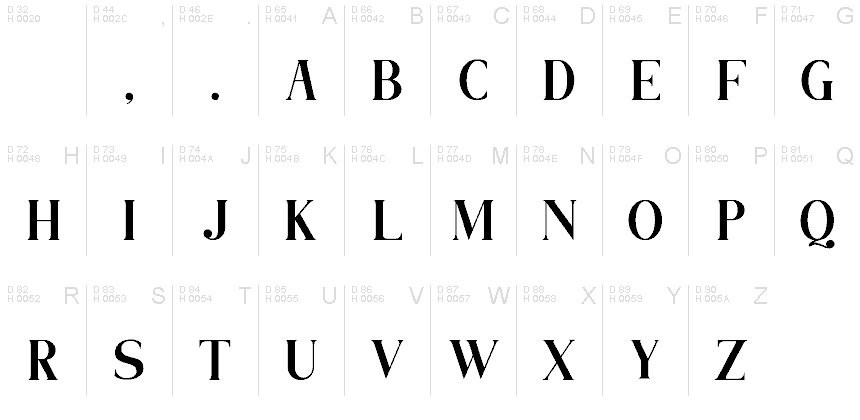
Damona Regular
Damona font by Achmad Yani offers an elegant and sophisticated serif style with classic and refined aesthetics. Influenced by historical design elements, the font captures a luxury appeal in its balanced outlines that flow beautifully along horizontal paths.
The free serif font is perfect for labels, branding, stationery, signage, wedding invites, greeting cards, magazines titles, book covers/contents/headings. Other use cases include quotes and more print/digital projects needing a timeless feel.